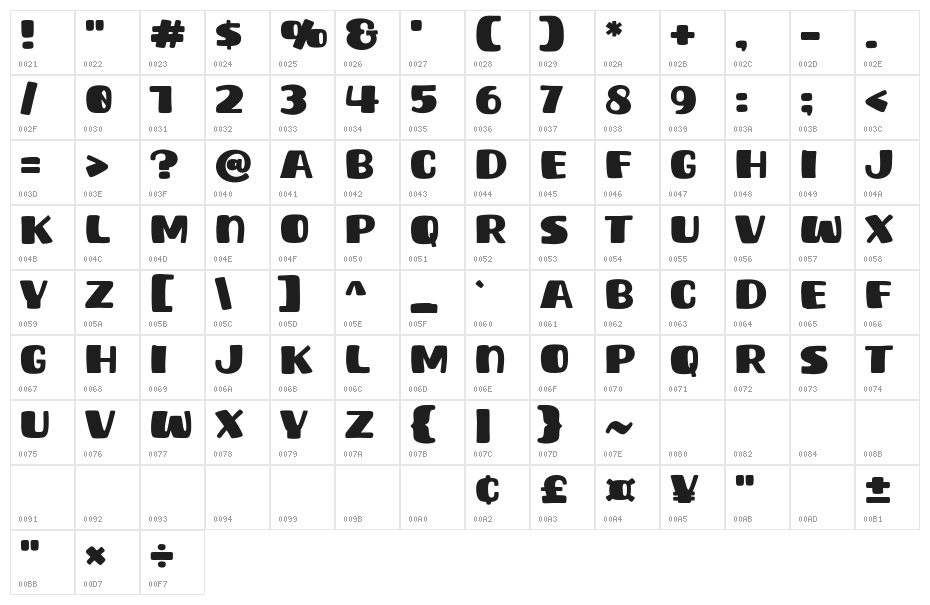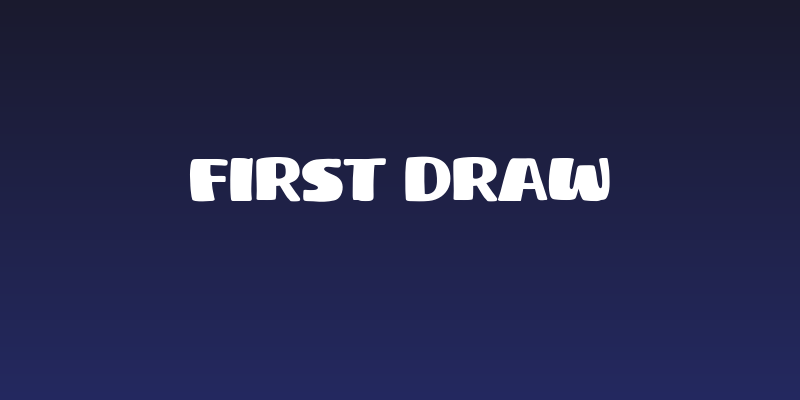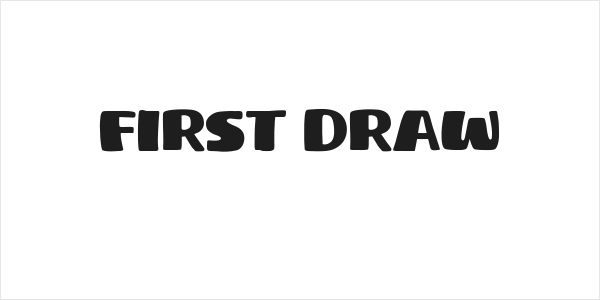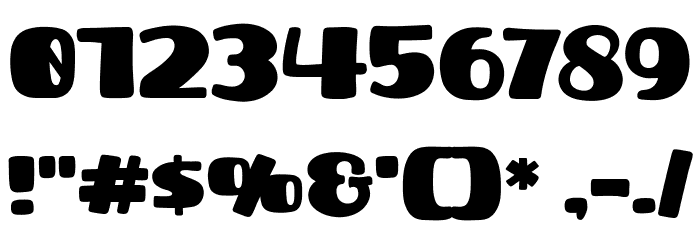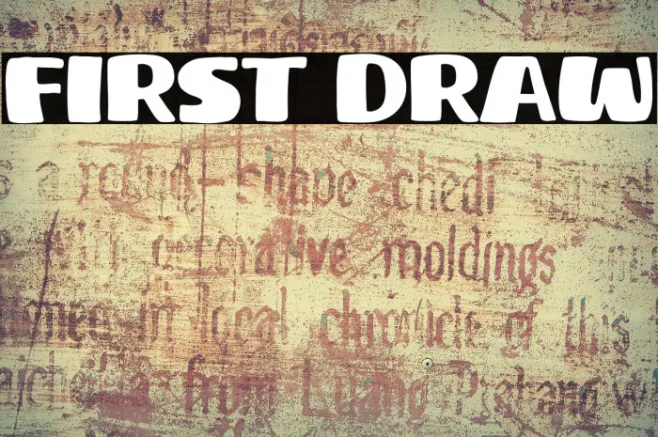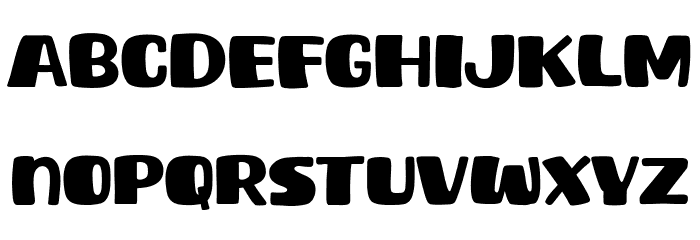
First Draw Font
First Draw Description
This font features a bold and playful style with rounded edges and a slightly irregular shape, giving it a hand-drawn appearance. The characters are thick and substantial, providing a strong visual impact. The uppercase and lowercase letters maintain a consistent width, while the numbers and special characters follow the same bold and rounded design. This font exudes a sense of fun and creativity, making it ideal for projects that require a lively and informal touch.
| Overall Style | Playful, Creative, Informal |
| Use Case | Headlines, Posters, Branding |
| Proposed Projects | Ideal for children's books, playful branding, posters, and creative projects that require a fun and informal touch. |